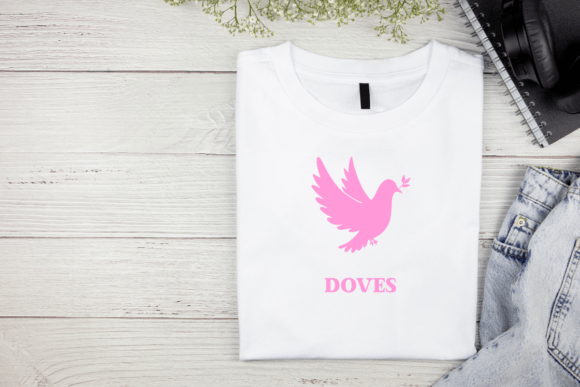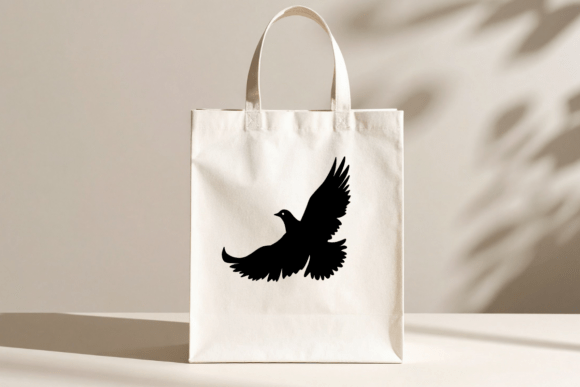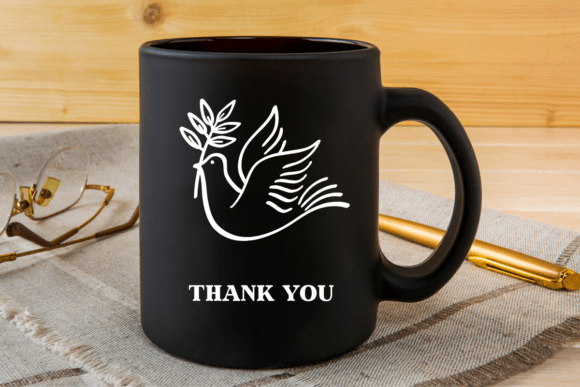
Introduction to Peace Doves Font
As a designer, have you ever found yourself struggling to convey a message of peace and serenity in your work? You’re not alone. We’ve all been there, trying to find the perfect image or symbol to convey the emotions we want to evoke in our audience. But what if you could convey that message with just a single font?
Enter the Peace Doves Font, a game-changing design resource that’s about to elevate your creative projects to new heights. This unique font replaces traditional alphanumeric characters with a stunning collection of dove silhouettes and line art, making it the perfect tool for designers looking to add a touch of harmony and elegance to their work.
Whether you’re working on a wedding invitation, a peace-themed poster, or a social media graphic, the Peace Doves Font is a high-quality resource that’s sure to impress. With its transparent background and scalable vector-style illustrations, you can easily add depth and meaning to your designs, making them perfect for any creative project.
Key Features of Peace Doves Font
- High-quality, unique design for creative projects, suitable for various digital and print media
- Includes a set of Peace Doves Font glyphs, each with a transparent background for seamless integration into designs
- Designed to be highly legible, even at small font sizes, making it perfect for signage, logos, and other creative applications
Honest Review: Peace Doves Font
- ✨ The high quality of the font is noticeable, even at larger sizes. It’s perfect for print or digital applications.
- ✨ The transparent background makes it easy to place the font over any image or design without worrying about unwanted edges.
- ✨ The Peace Doves Font is versatile and can be used for a wide range of creative projects, from posters to social media graphics.
- ⚠️ The font may not be suitable for use in certain industries, such as finance or technology, where a more conservative font style is preferred.
- ⚠️ Some users may find the font too cursive or playful, depending on their design style.
Overall, I’m impressed with the Peace Doves Font and would recommend it to designers looking for a high-quality, creative font for their projects. With its free download option and transparent background, it’s a valuable addition to any design resource library.
The Peace Doves Font is a high-quality design resource perfect for creative projects. With a transparent background, it offers a clean and elegant look that can elevate any design. In this guide, we’ll show you how to use the Peace Doves Font in popular design platforms.
The Peace Doves Font is perfect for:
- Peace and love-themed designs
- Posters and flyers for events